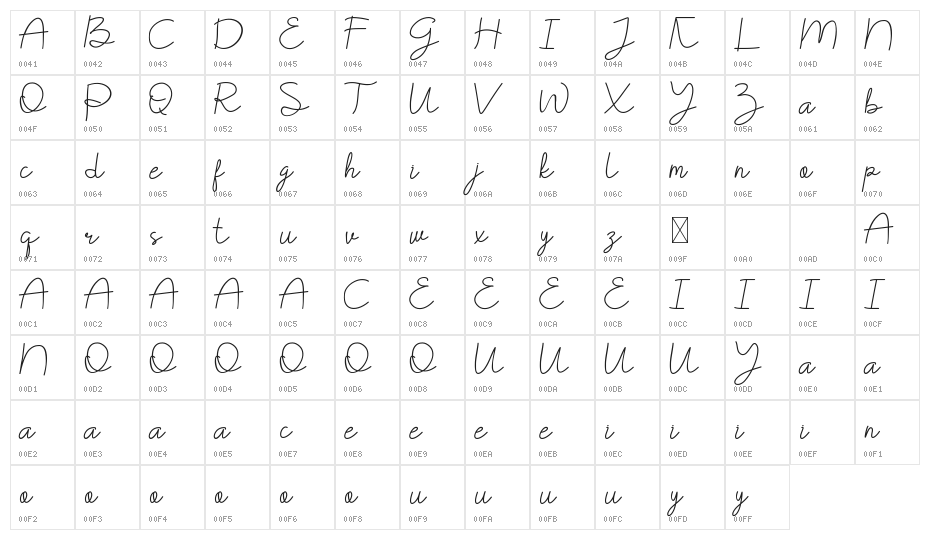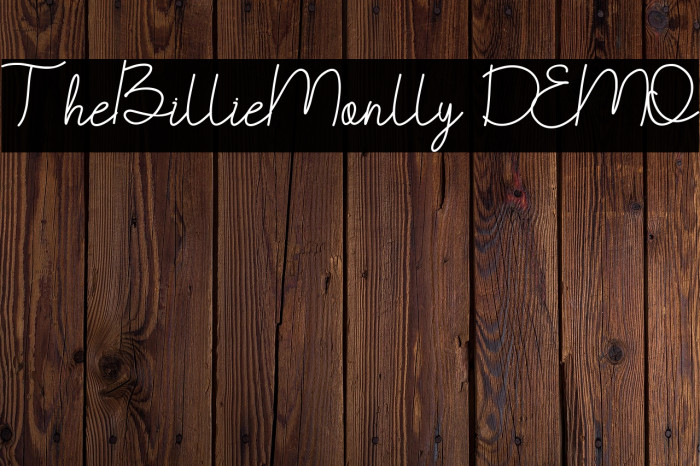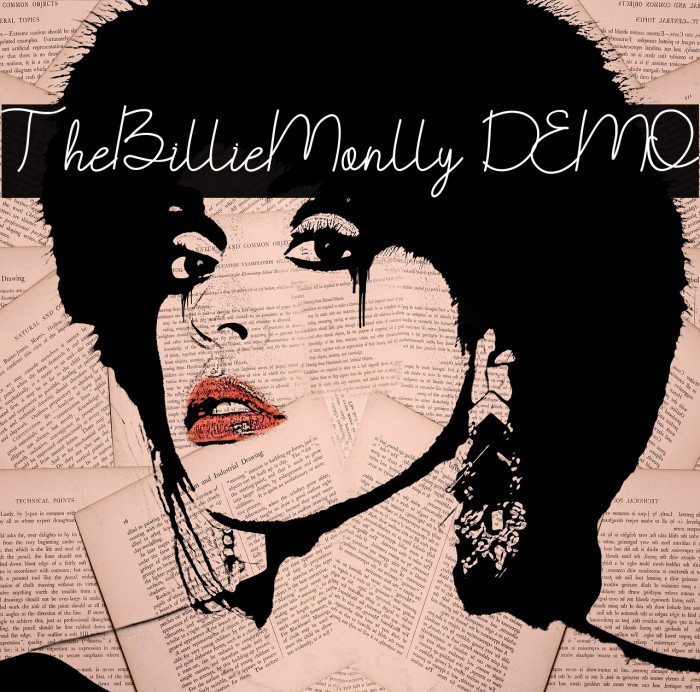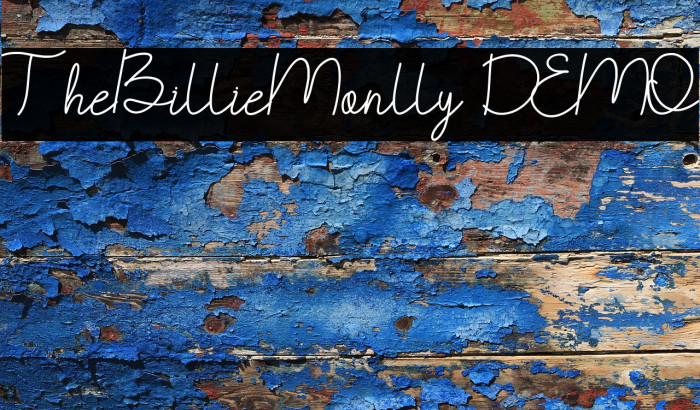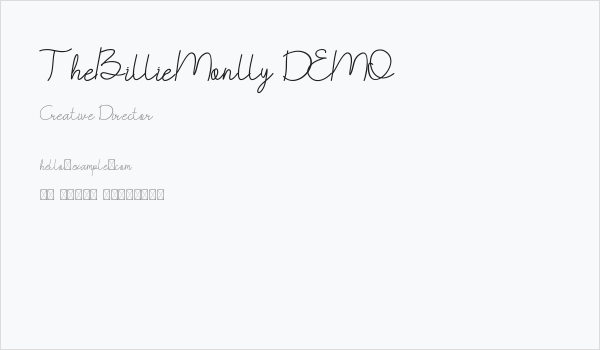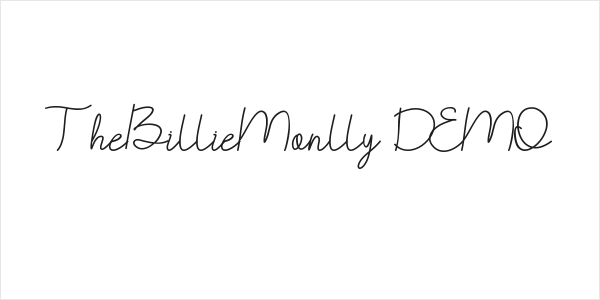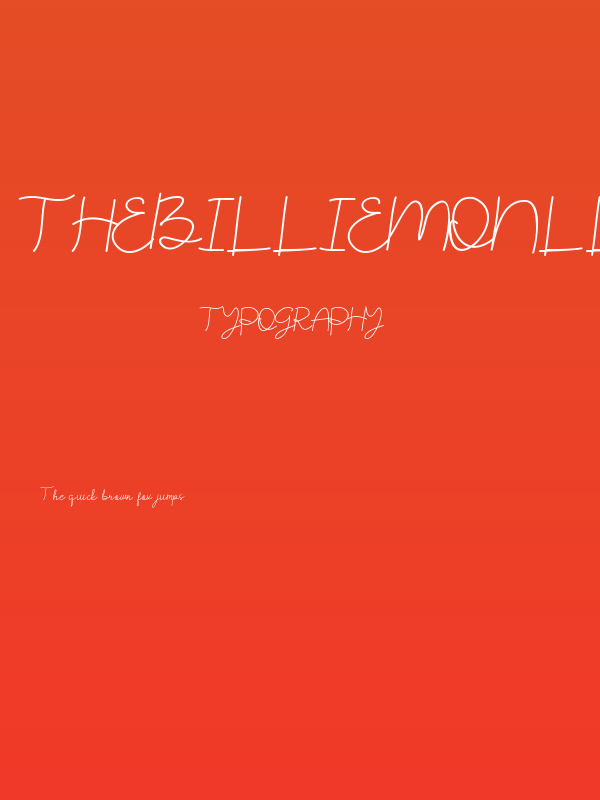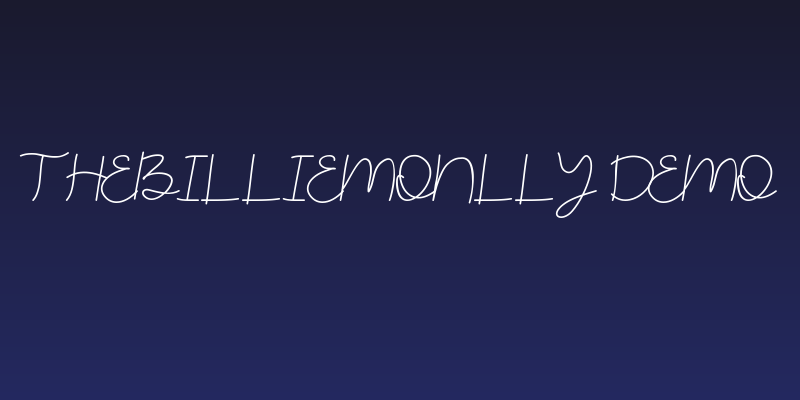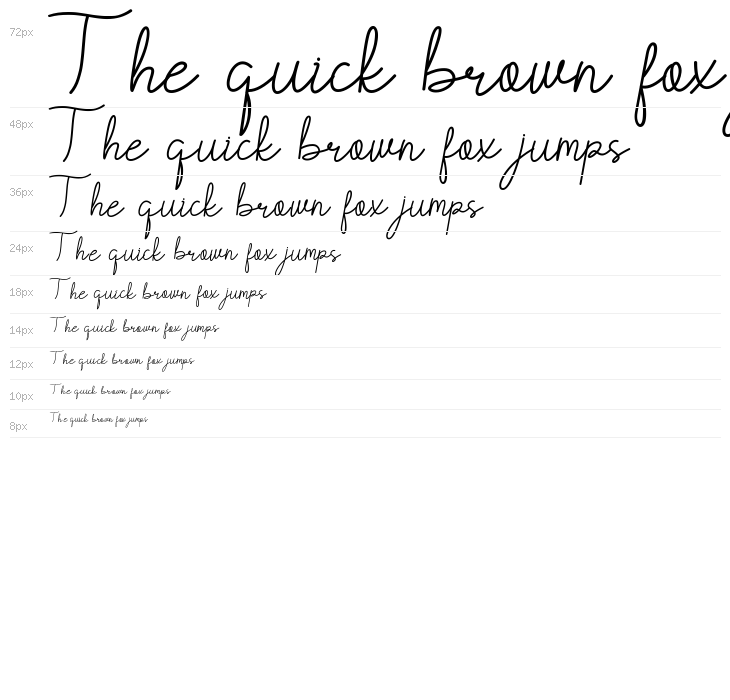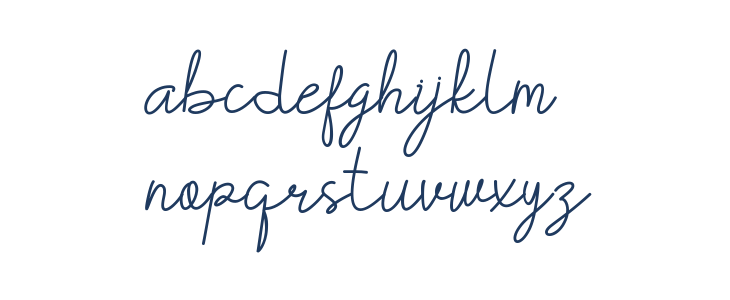
TheBillieMonlly DEMO Font
TheBillieMonlly DEMO Description
This font features a playful and elegant handwritten style, characterized by its fluid and continuous strokes. The uppercase letters exhibit a unique blend of curves and straight lines, giving them a modern yet whimsical appearance. The lowercase letters maintain a consistent flow, enhancing the font's overall cohesiveness. The characters are slightly slanted, adding a dynamic feel to the text. The font's design is both approachable and sophisticated, making it suitable for a variety of creative applications. Its distinct style is perfect for projects that require a personal touch, such as invitations, greeting cards, and branding materials.